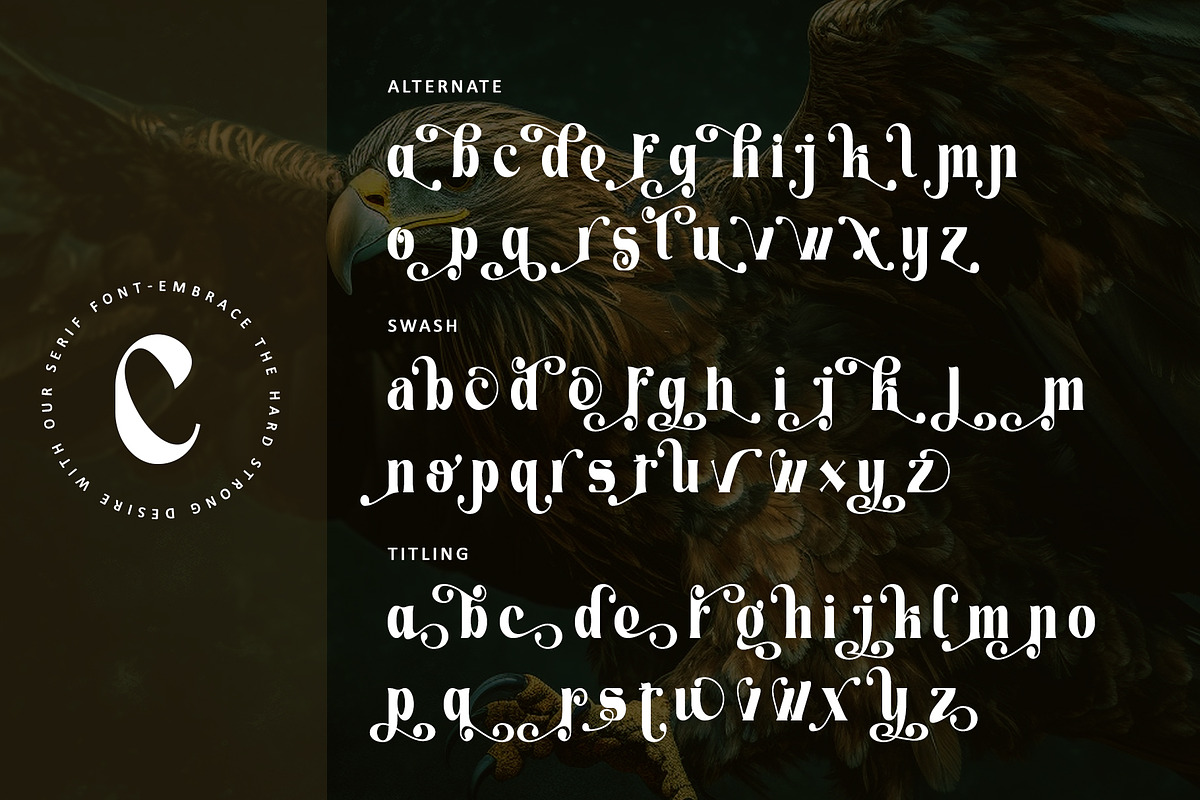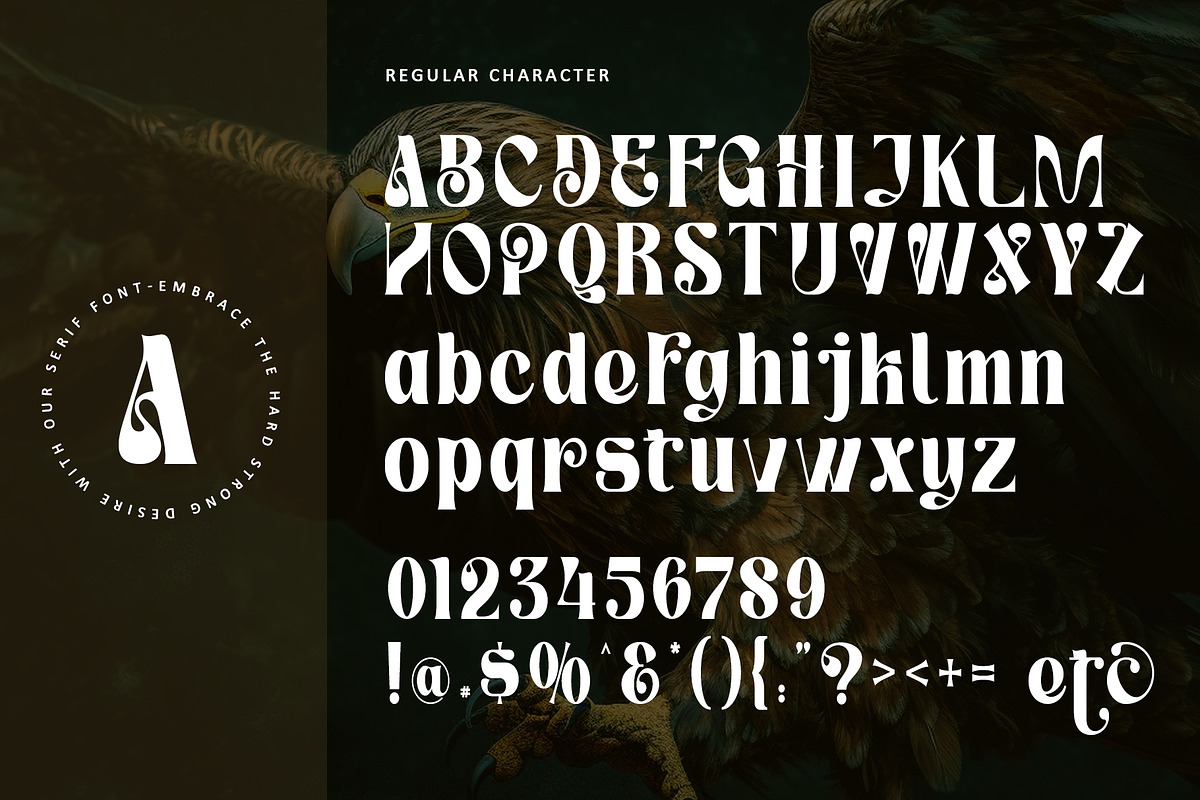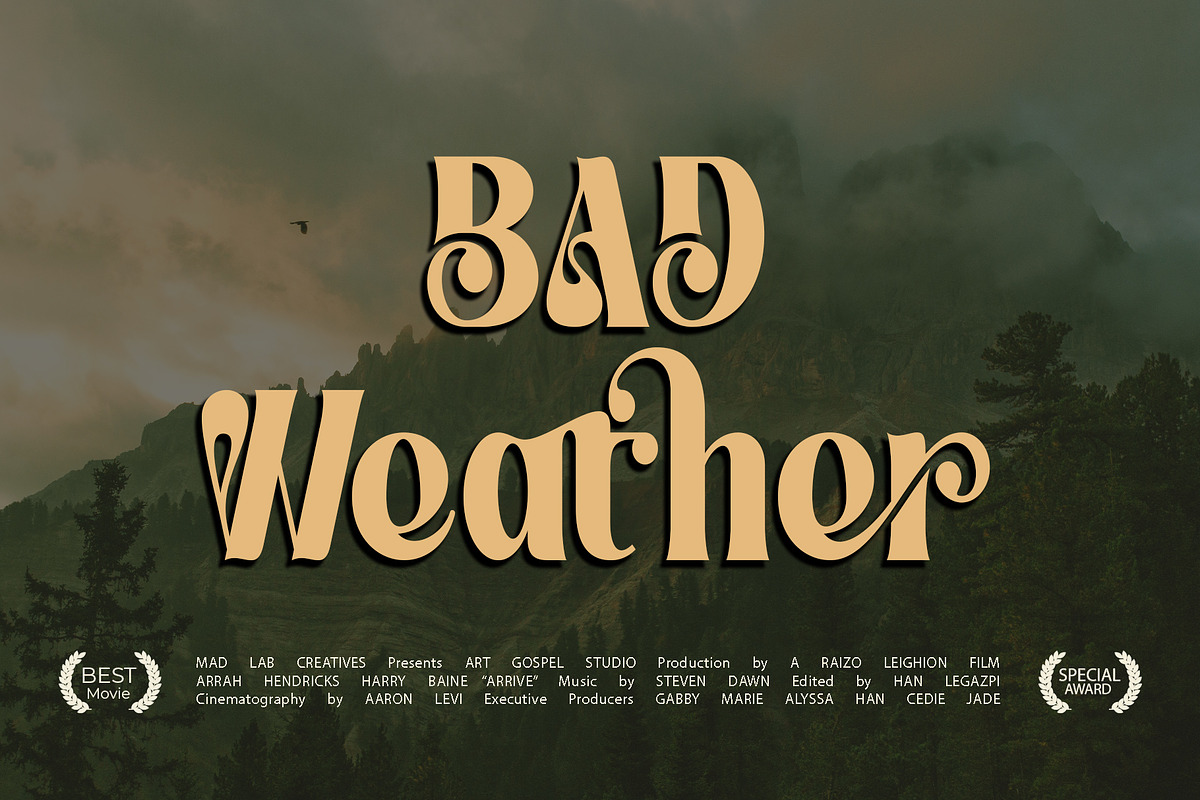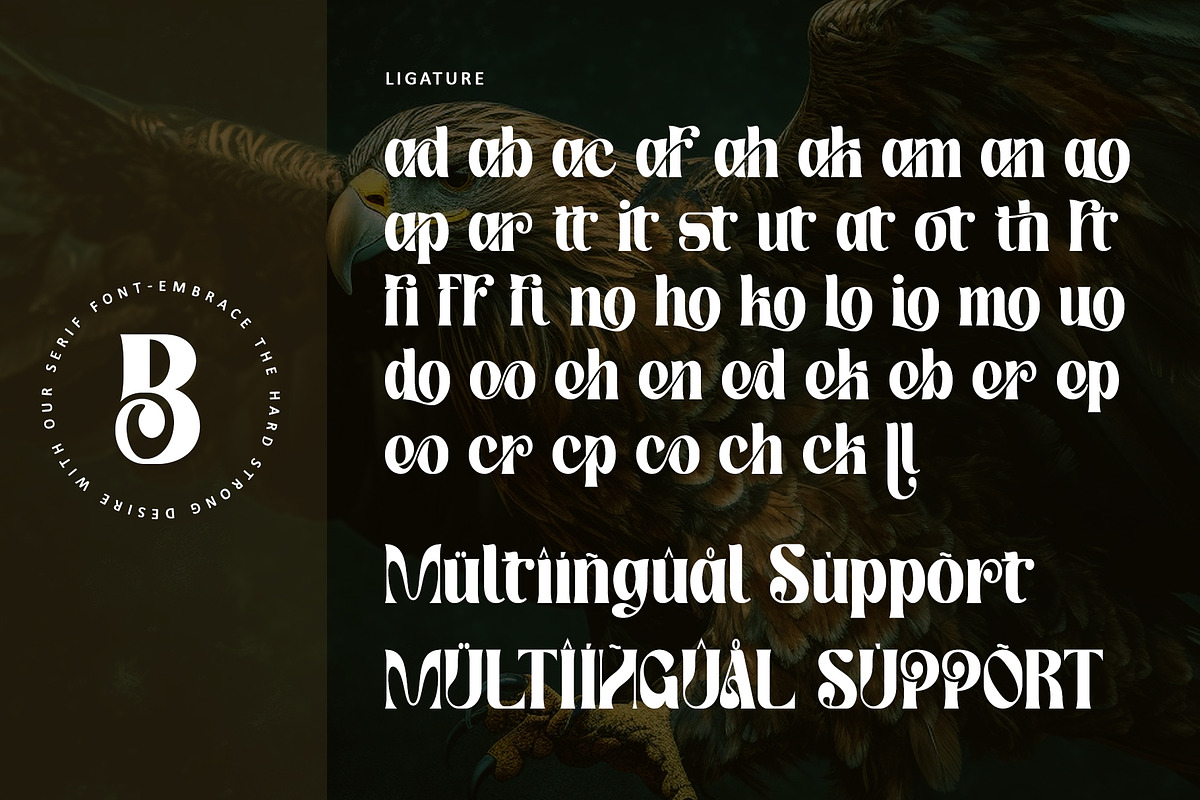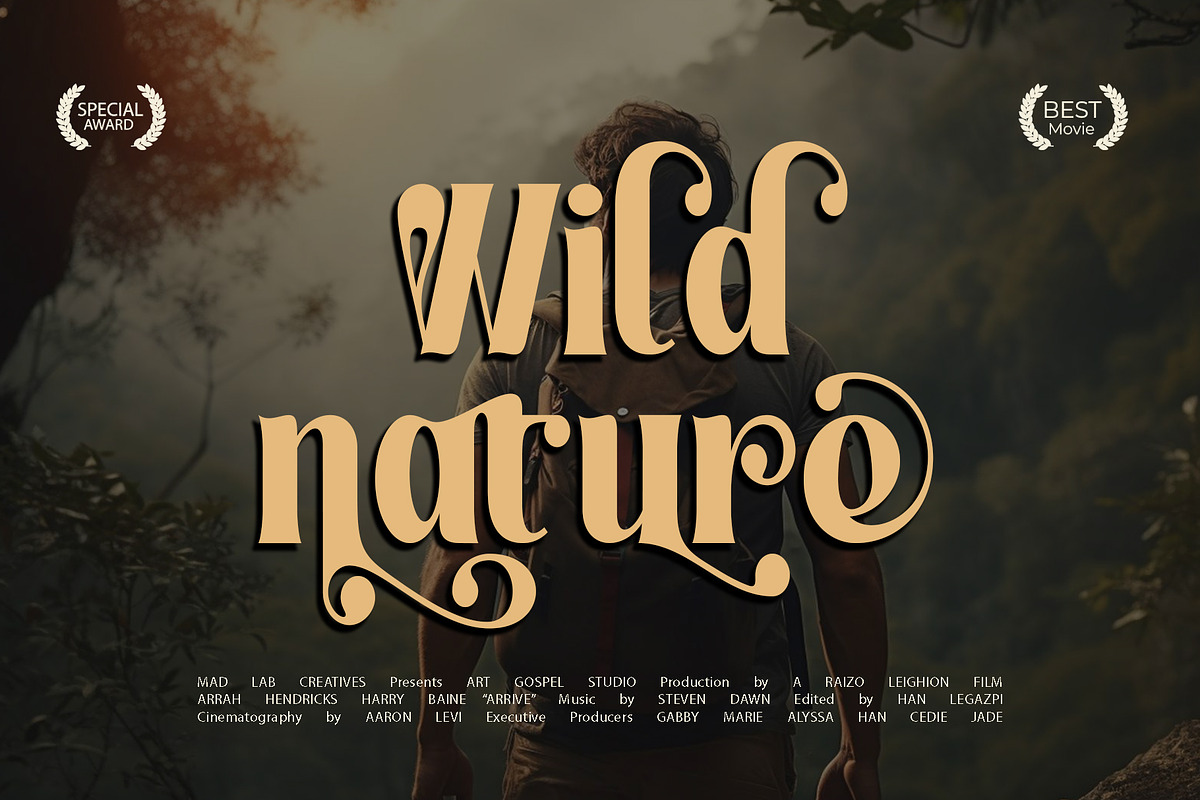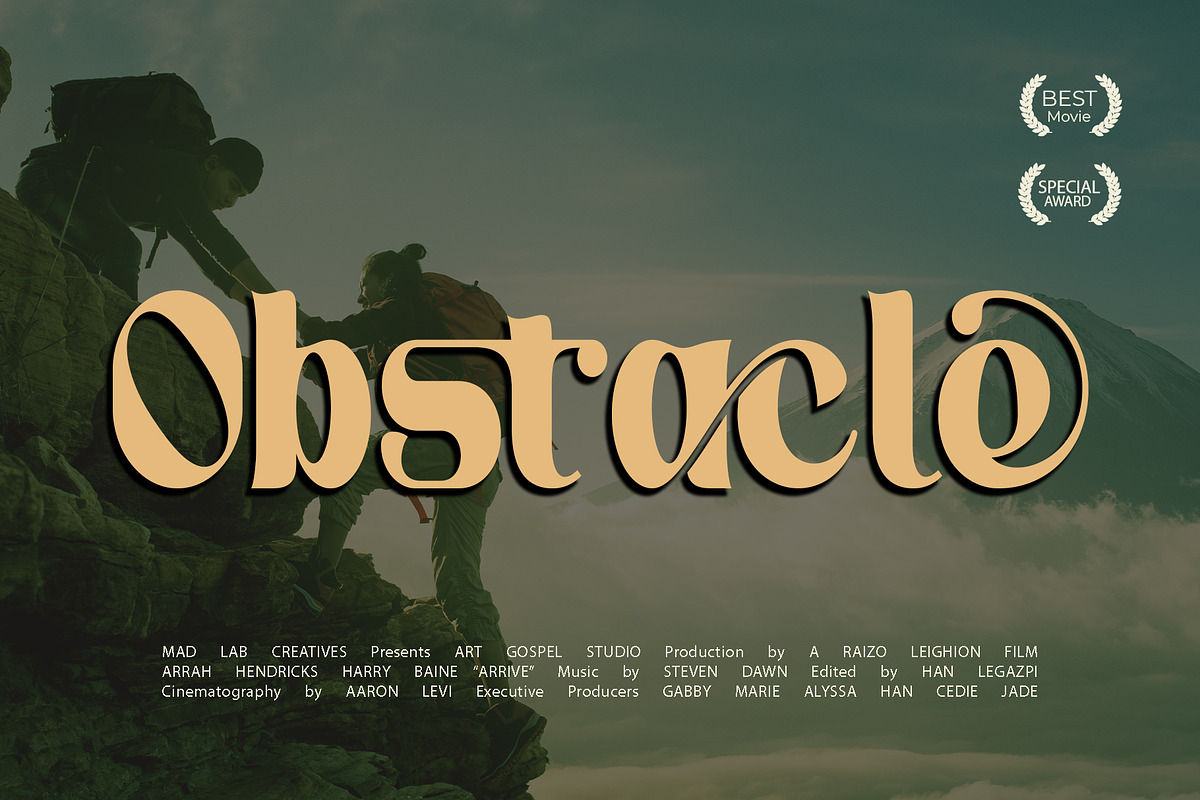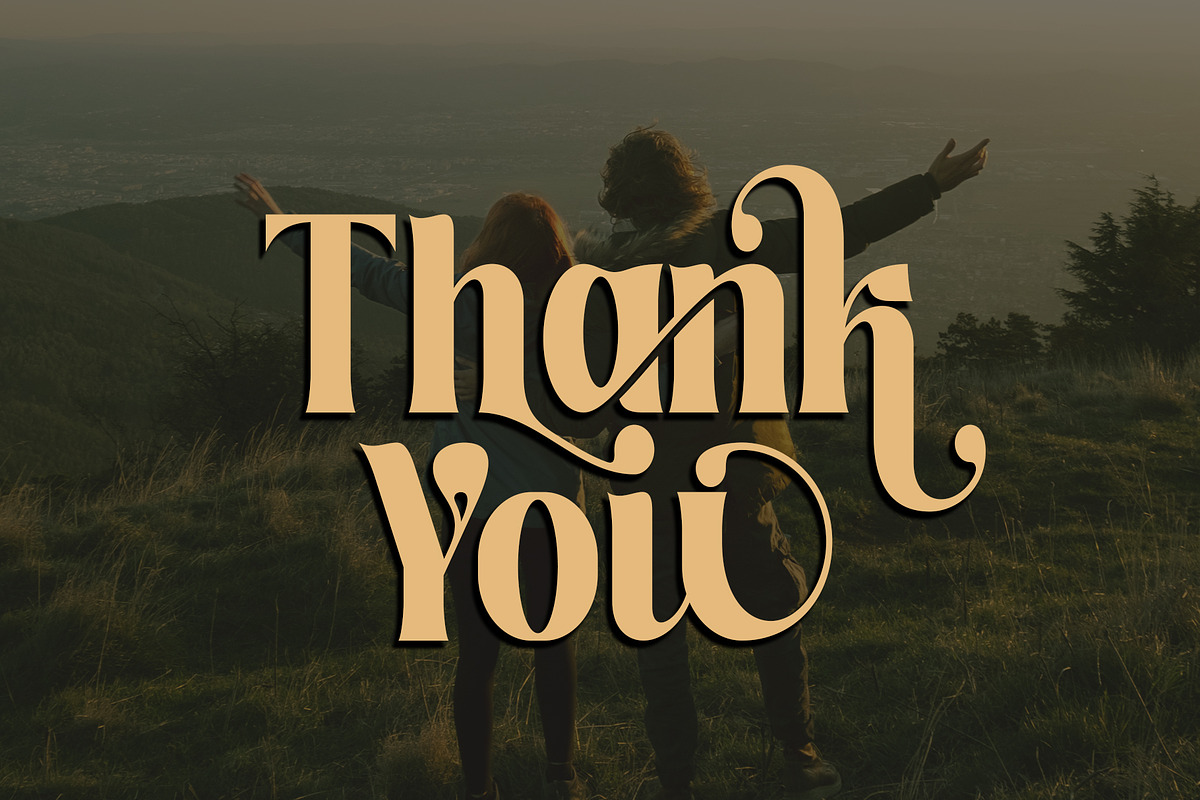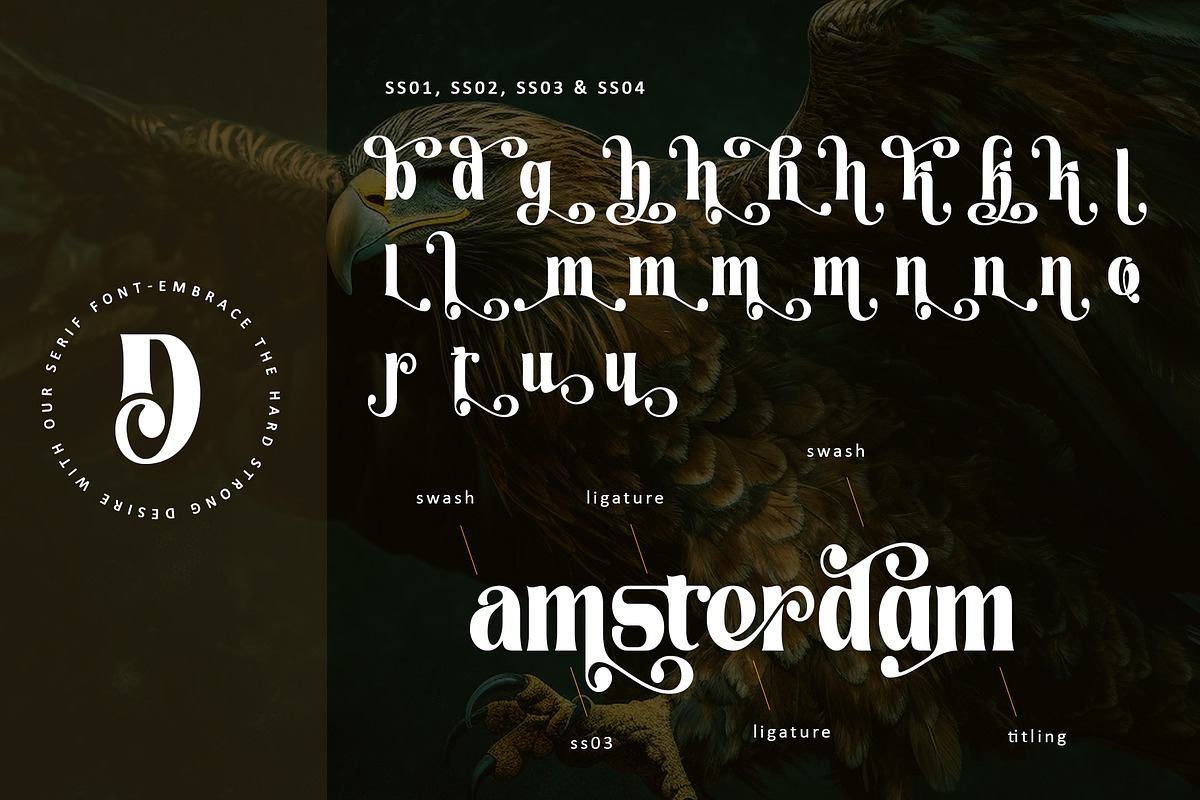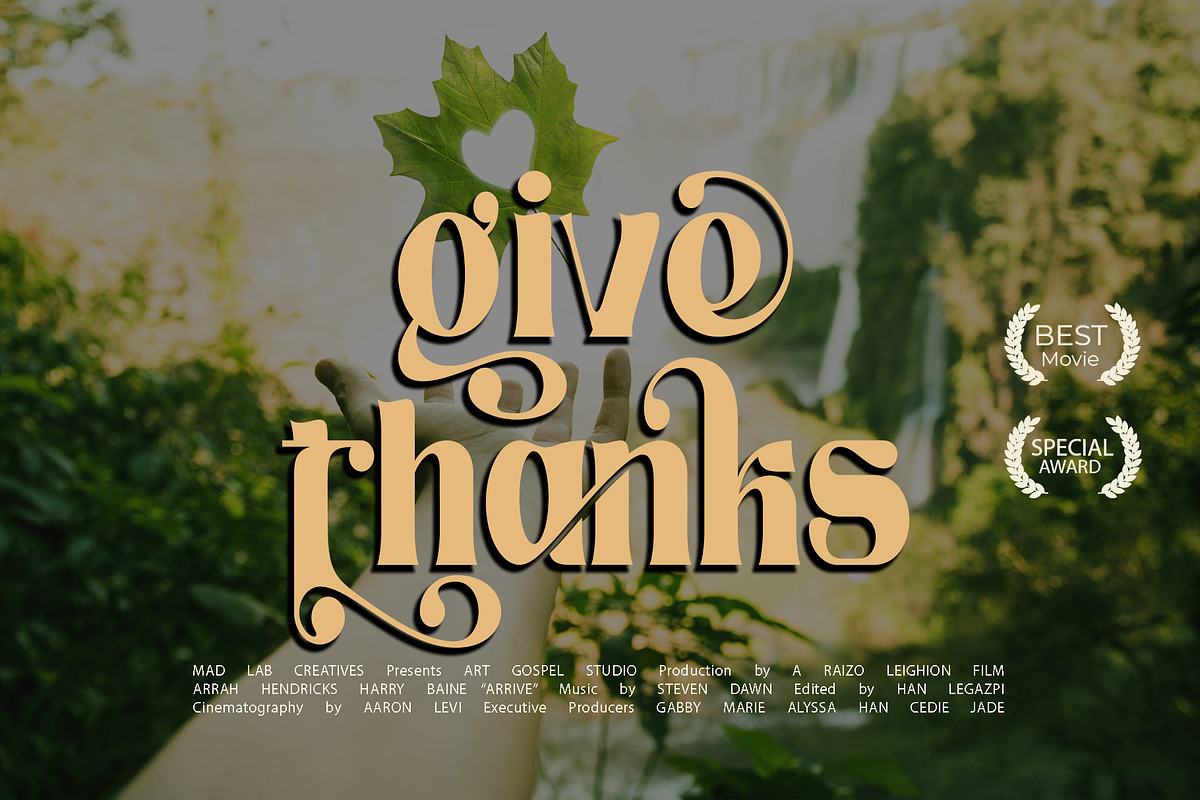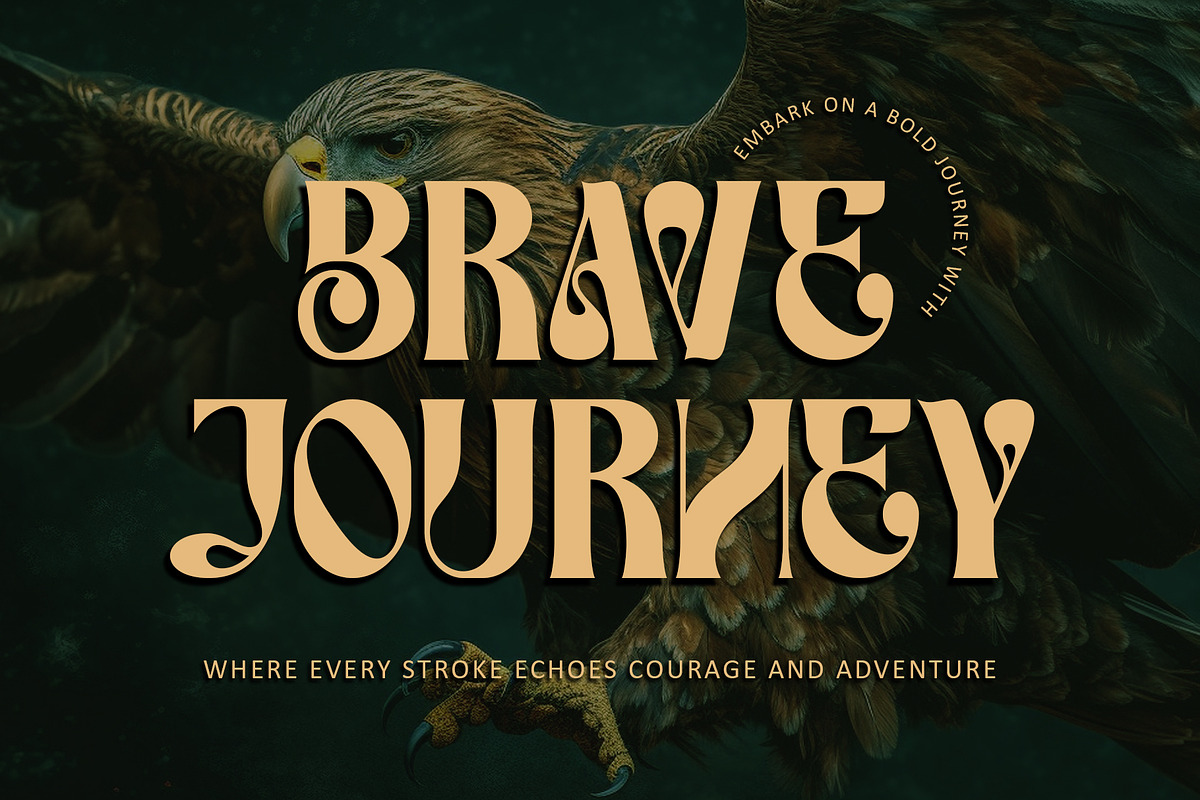
Brave Journey
Embark on a typographic adventure with "Brave Journey," a captivating serif font that seamlessly fuses bold elegance with distinctive character forms. Tailored for a variety of design projects, from adventurous product packaging to dynamic branding, this font's PUA encoding ensures effortless access to an array of unique glyphs and swashes. Brace yourself for exceptional outcomes as you infuse your creative endeavors with the daring spirit of "Brave Journey."
- Support multilingual; ä ö ü Ä Ö Ü ß ¿ ¡
- lowercase and uppercase letters
Alternate, swash, titling, ss01, ss02, ss03, ss04 & ligature - Simple installations